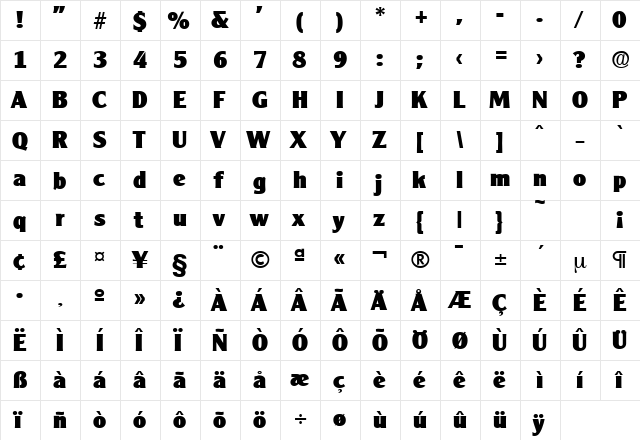
Cleargothic-Serial-Heavy DB Regular
Design Context for Cleargothic-Serial-Heavy DB Typeface
Cleargothic-Serial-Heavy DB takes a clean, functional approach — its unadorned letterforms prioritise legibility and work reliably across screen and print environments.
Font Pairing: Works well alongside a characterful serif or display font that can carry the expressive load while Cleargothic-Serial-Heavy DB handles the functional copy.
Pro Tip: Use Cleargothic-Serial-Heavy DB for UI labels, navigation, and short-form body copy where clean legibility is the priority.